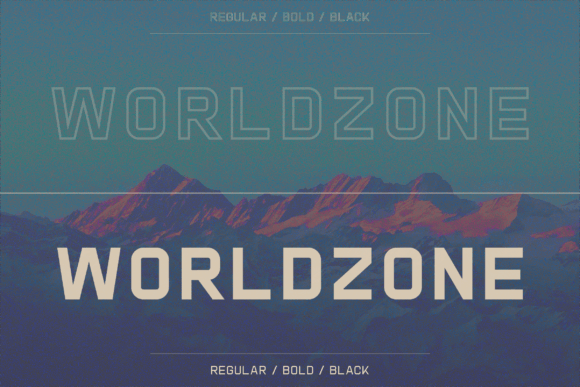
Introducing Worldzone Font - the ultimate choice for those seeking to make a bold and unforgettable impression. Crafted by the expert team at Huntype, this sans-serif gem is designed to captivate and demand attention.
With its strong and powerful presence, Worldzone Font ensures your message will never go unnoticed. Its bold and dynamic letterforms effortlessly convey a sense of strength and authority, making it perfect for creating impactful headlines, logos, and any design project that requires a touch of commanding elegance.
Are you tired of blending in with the crowd? Worldzone Font is here to elevate your designs and set you apart from the rest. Its unique and eye-catching style guarantees that your creations will turn heads and leave a lasting impression on your audience.
Whether you're creating stunning poster boards, engaging social media graphics, or mesmerizing website headers, Worldzone Font is your secret weapon. Its versatility allows it to adapt effortlessly to any project, breathing life into your ideas and adding that touch of professionalism that sets you apart.
But Worldzone Font is not just about aesthetics - it goes beyond that. It evokes emotions and tells a story. With every stroke and curve, it exudes confidence and determination, inspiring your audience to take action and believe in your message.
Imagine the impact your designs will have when you harness the power of Worldzone Font. Say goodbye to generic and uninspiring typography, and say hello to a world where beauty meets functionality. Let your creativity flourish, and watch as Worldzone Font breathes life into your vision.
Experience the allure of Worldzone Font and embark on a journey where creativity knows no bounds. Step into a world where every design becomes a masterpiece. Take the leap and let Worldzone Font be your guide.